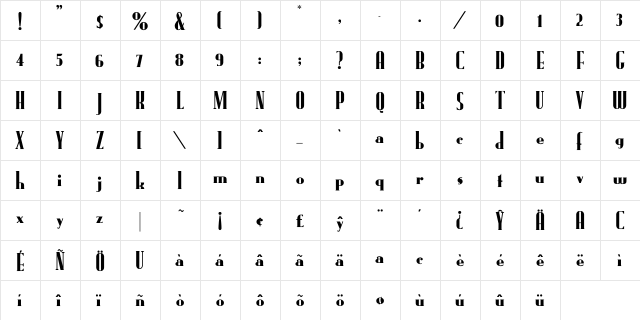
FundRunk Regular
Design Context for FundRunk Typeface
FundRunk has an approachable, lighthearted character — its loose, expressive forms are well-suited to children's content, casual branding, and fun-first design.
Font Pairing: Pairs well with a rounded or humanist sans for body copy, maintaining the friendly tone without relying on FundRunk to carry extended reading.
Pro Tip: Avoid using FundRunk for long passages of text — it works best for headlines, labels, and short calls to action.